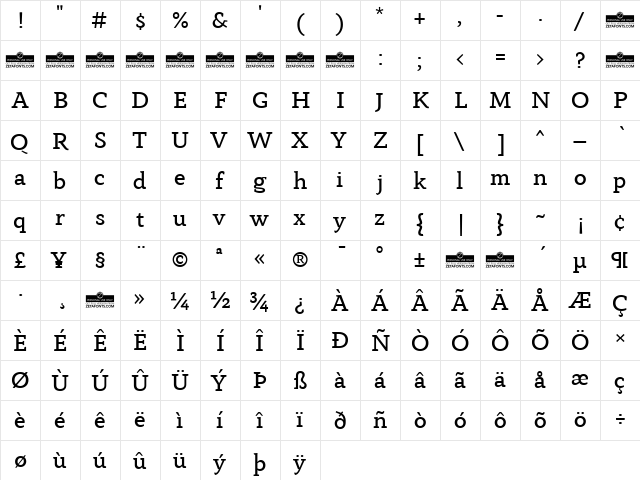
Anaphora Trial Book
| Foundry | Studio Kmzero |
| Designer | Francesco Canovaro |
Design Context for Anaphora Trial Typeface
Anaphora Trial is a composed and adaptable typeface that performs quietly and consistently across a wide range of design contexts.